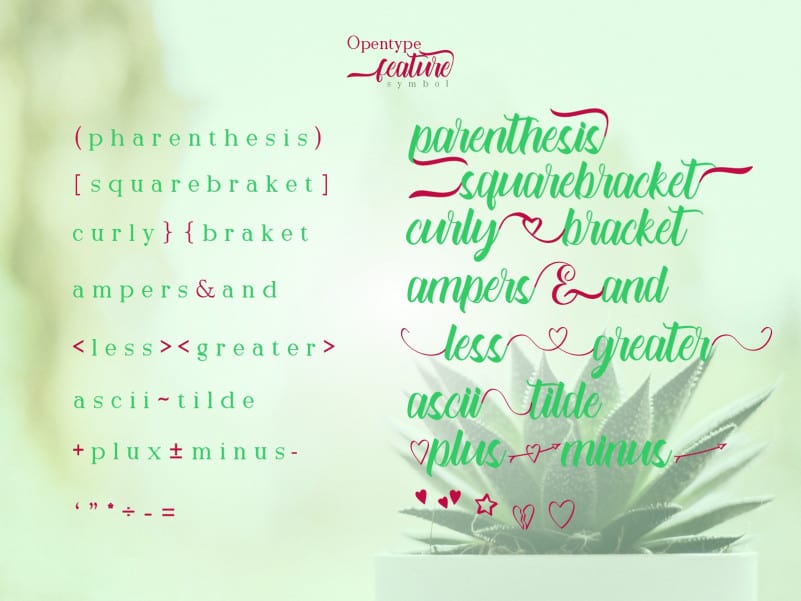
Alloefira Calligraphy Font
Alloefira Calligraphy Font is a beautiful handwritten typeface. With varied base line features, fine lines, beautiful flying machines and amazing alternatives. It is suitable to be applied in wedding invitations, business cards, writing logos and impressive romantic writing.
Alloefira Calligraphy Font does not provide alternates features to create prefix and suffix lines. Because it is just to type symbols such as pharenthesis, squarebraket, curlybraket, less greater and other symbols to add a beautiful prefix and suffix. So it is very easy to use in design and office applications even applications that do not provide alternates features.